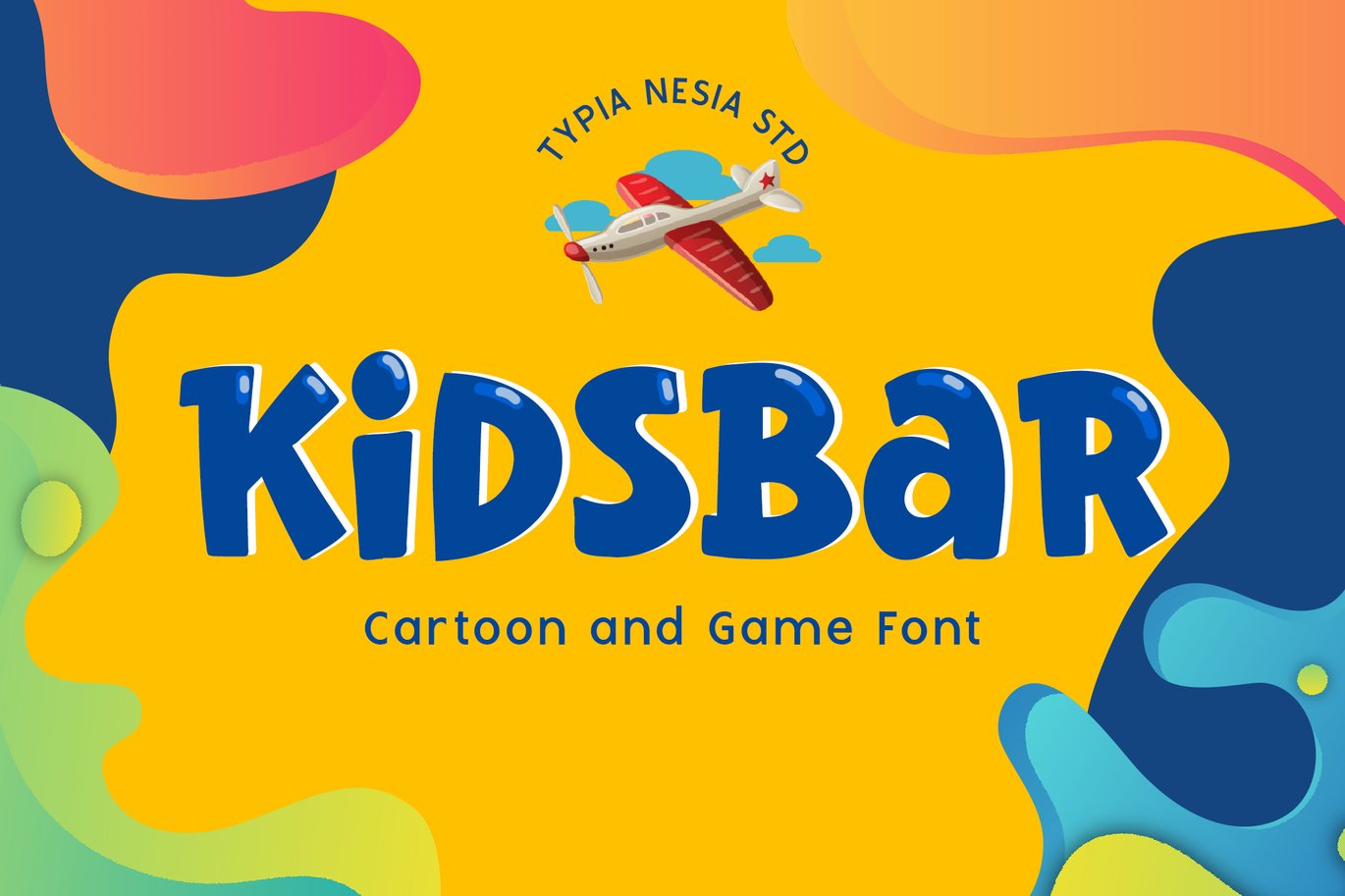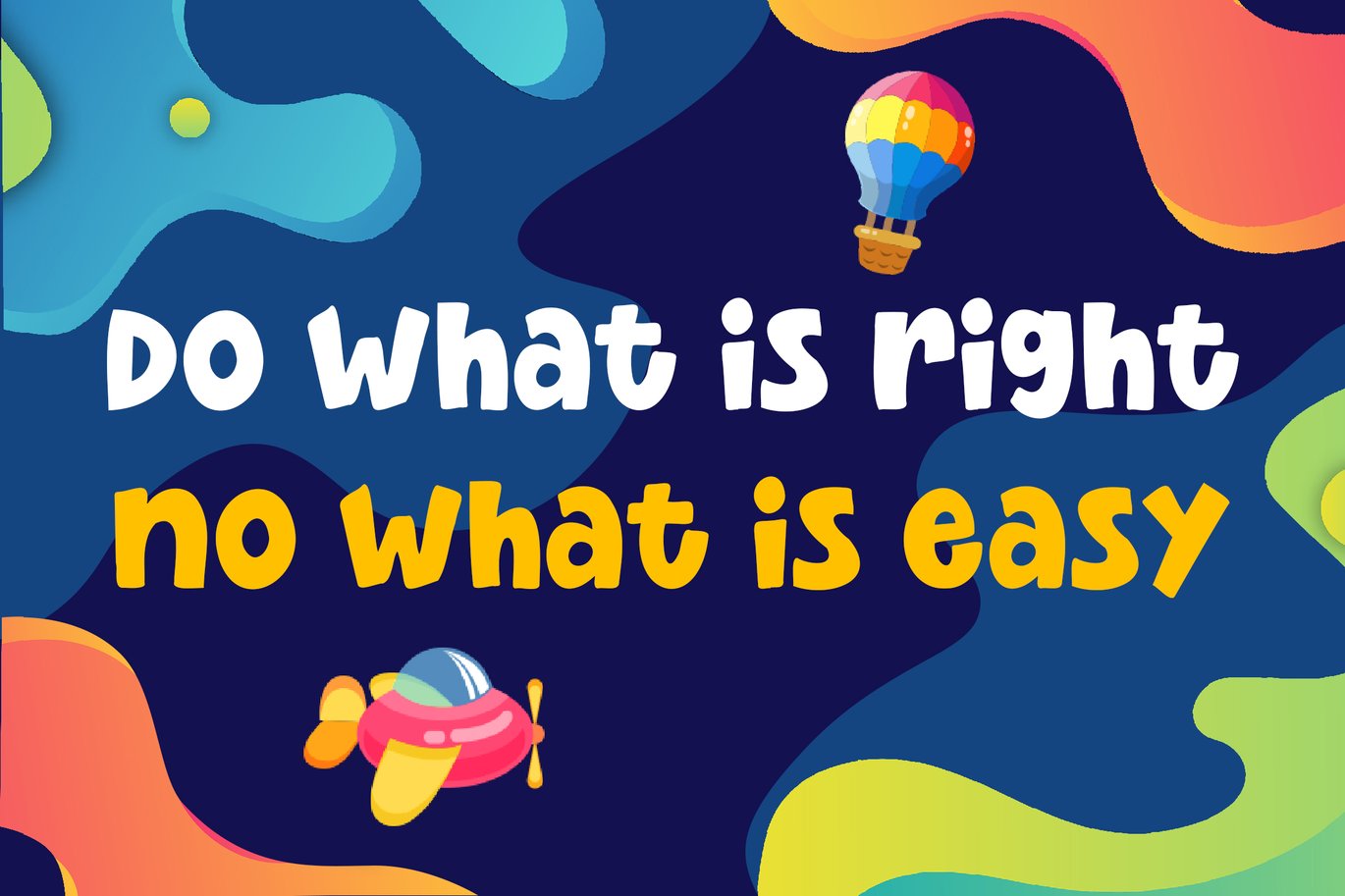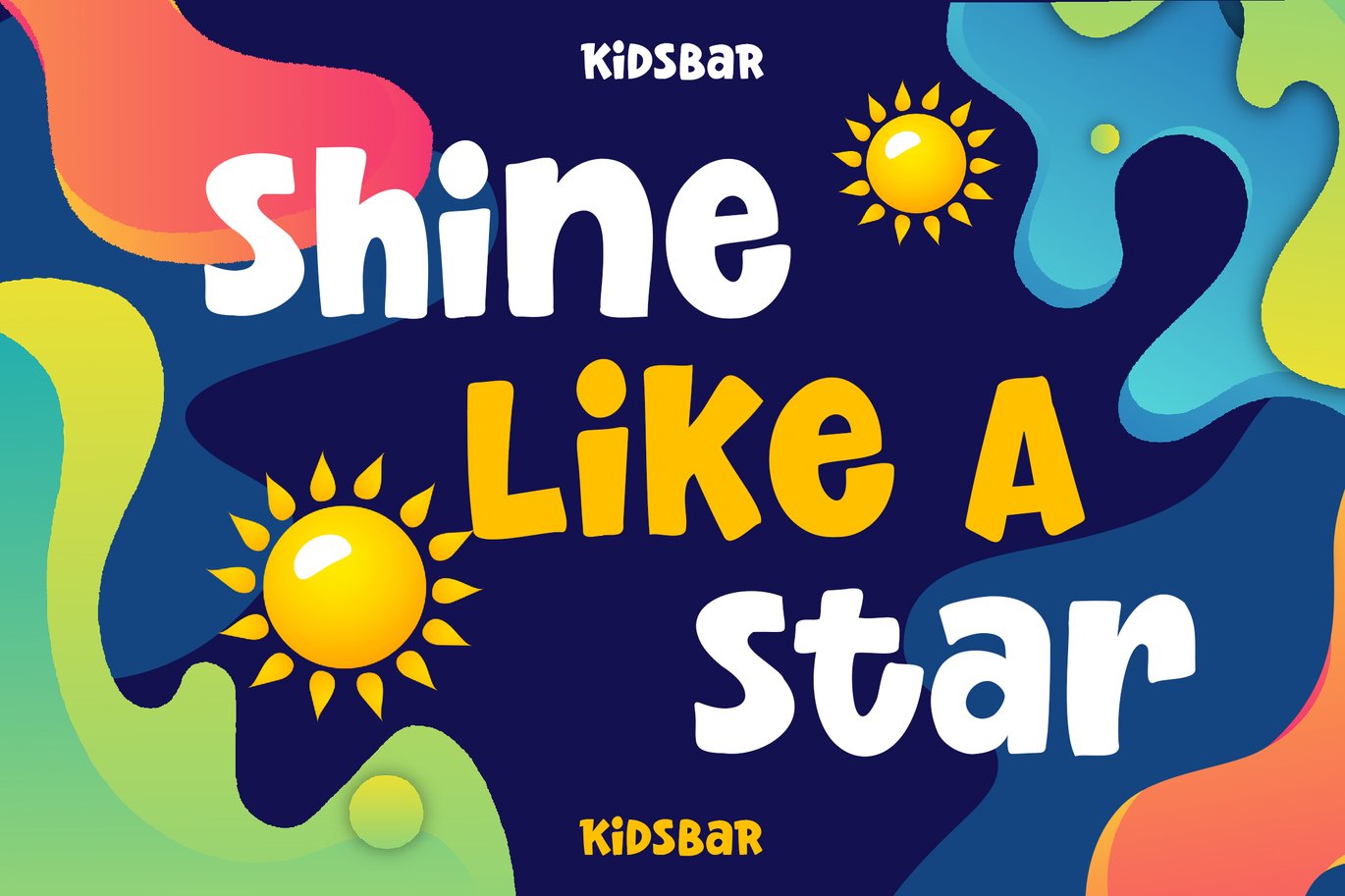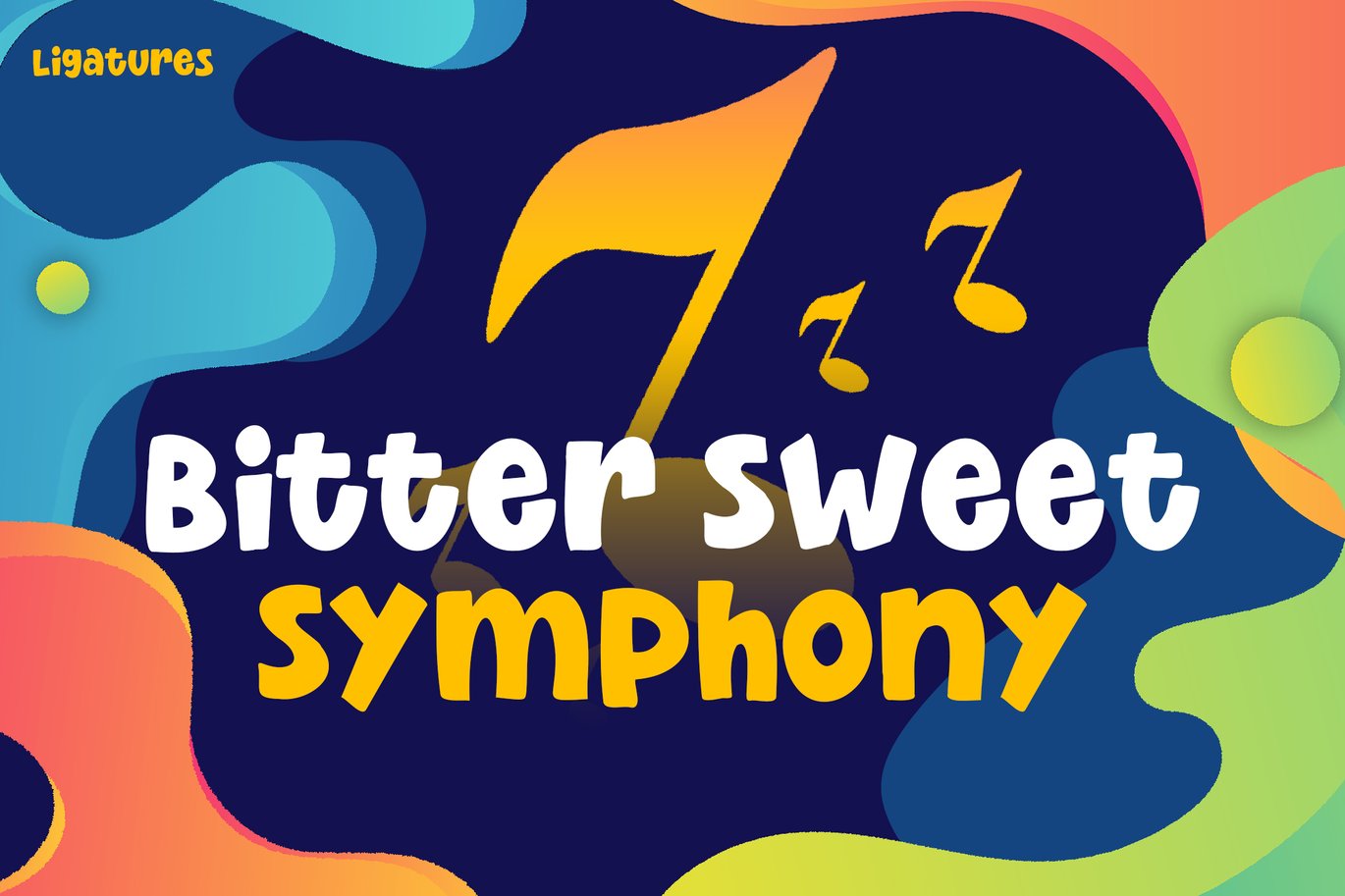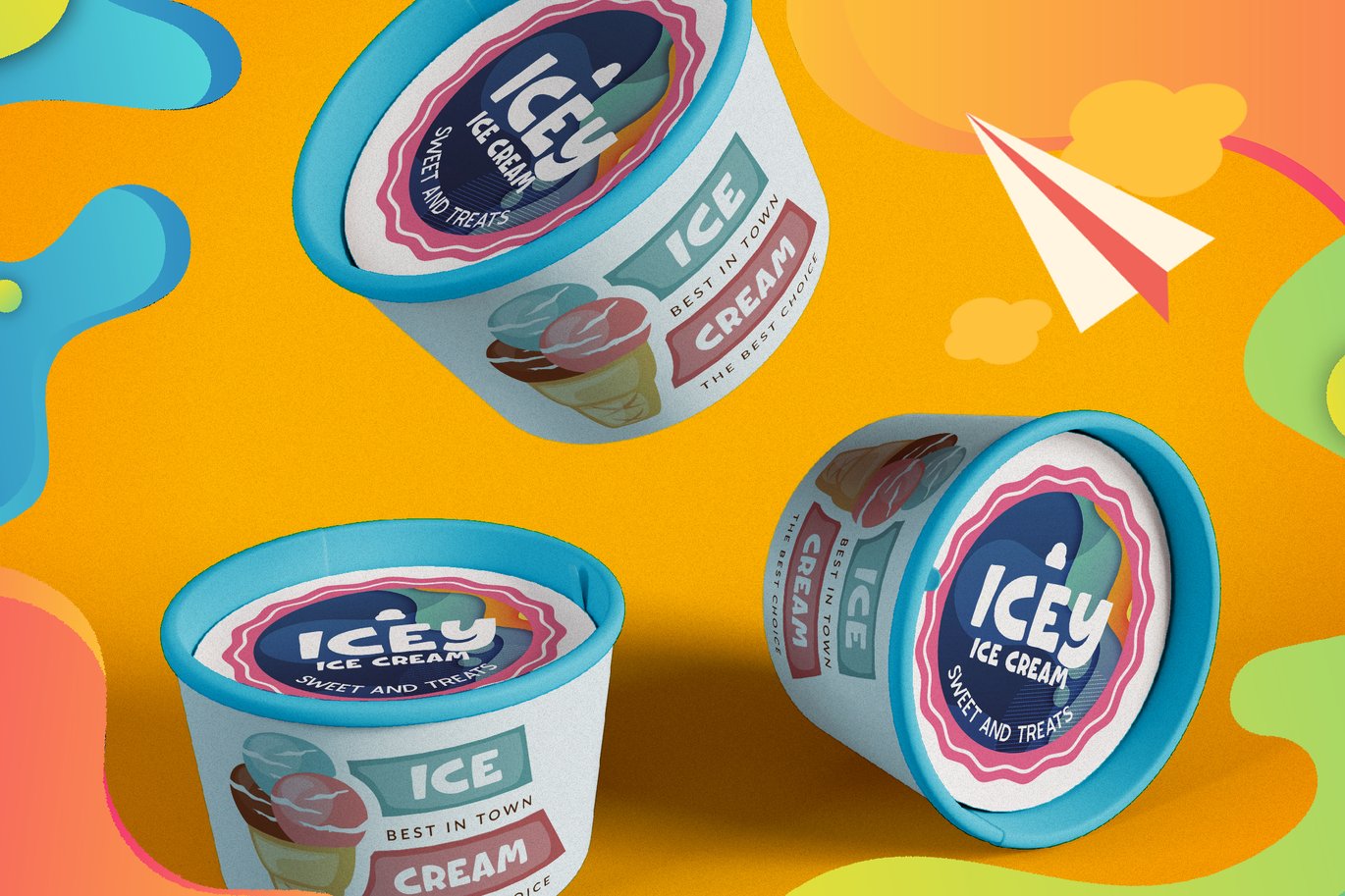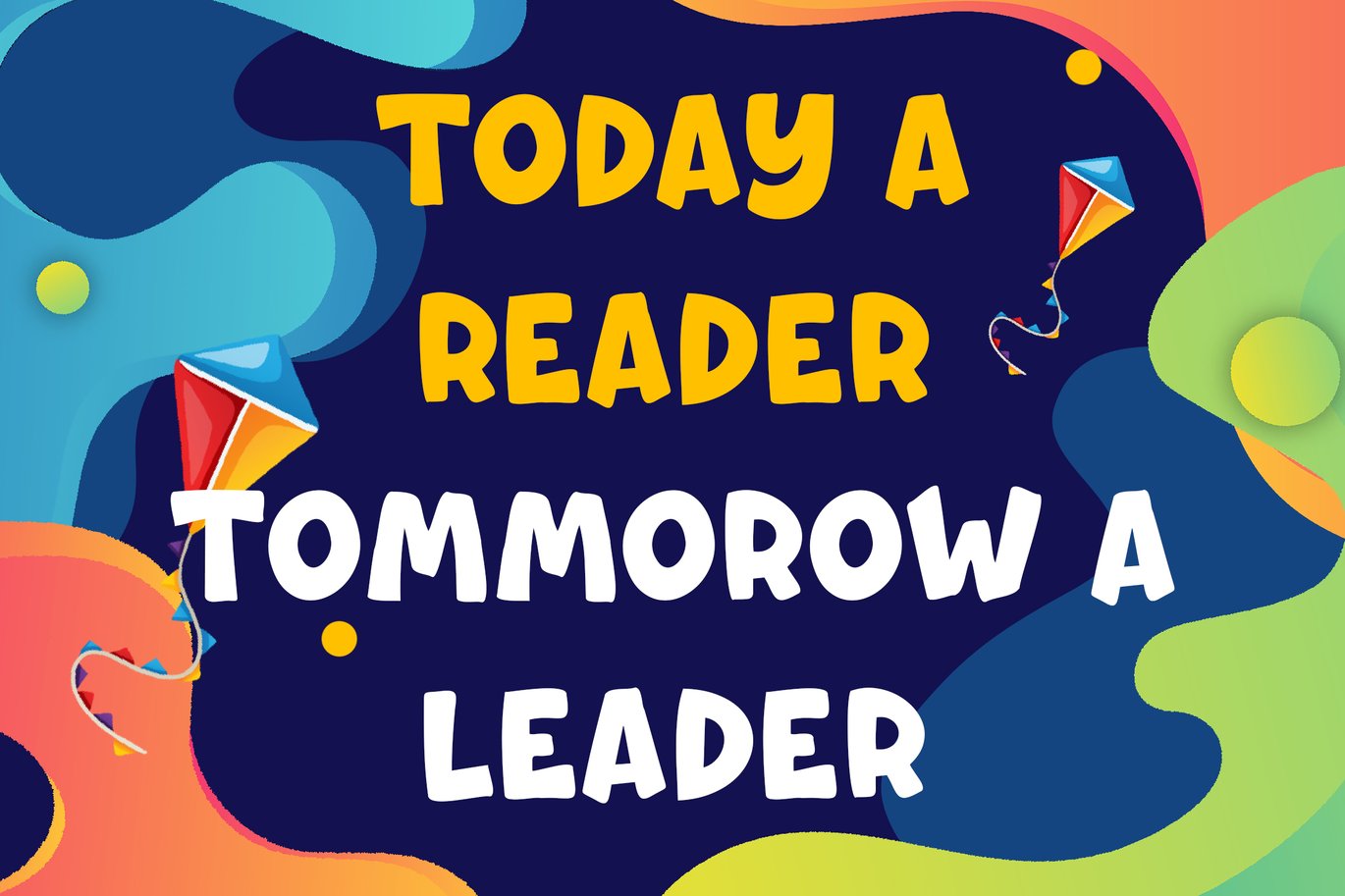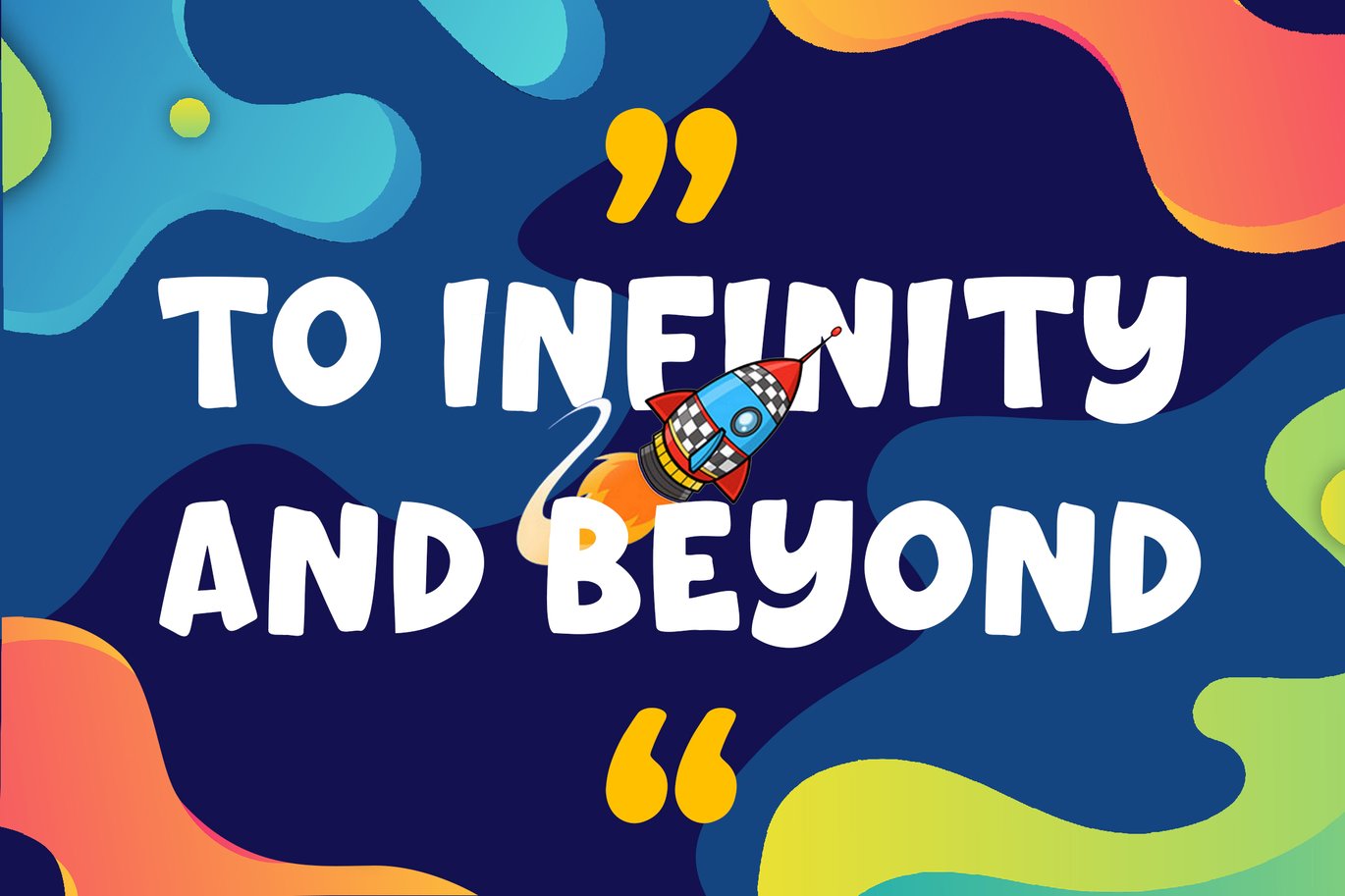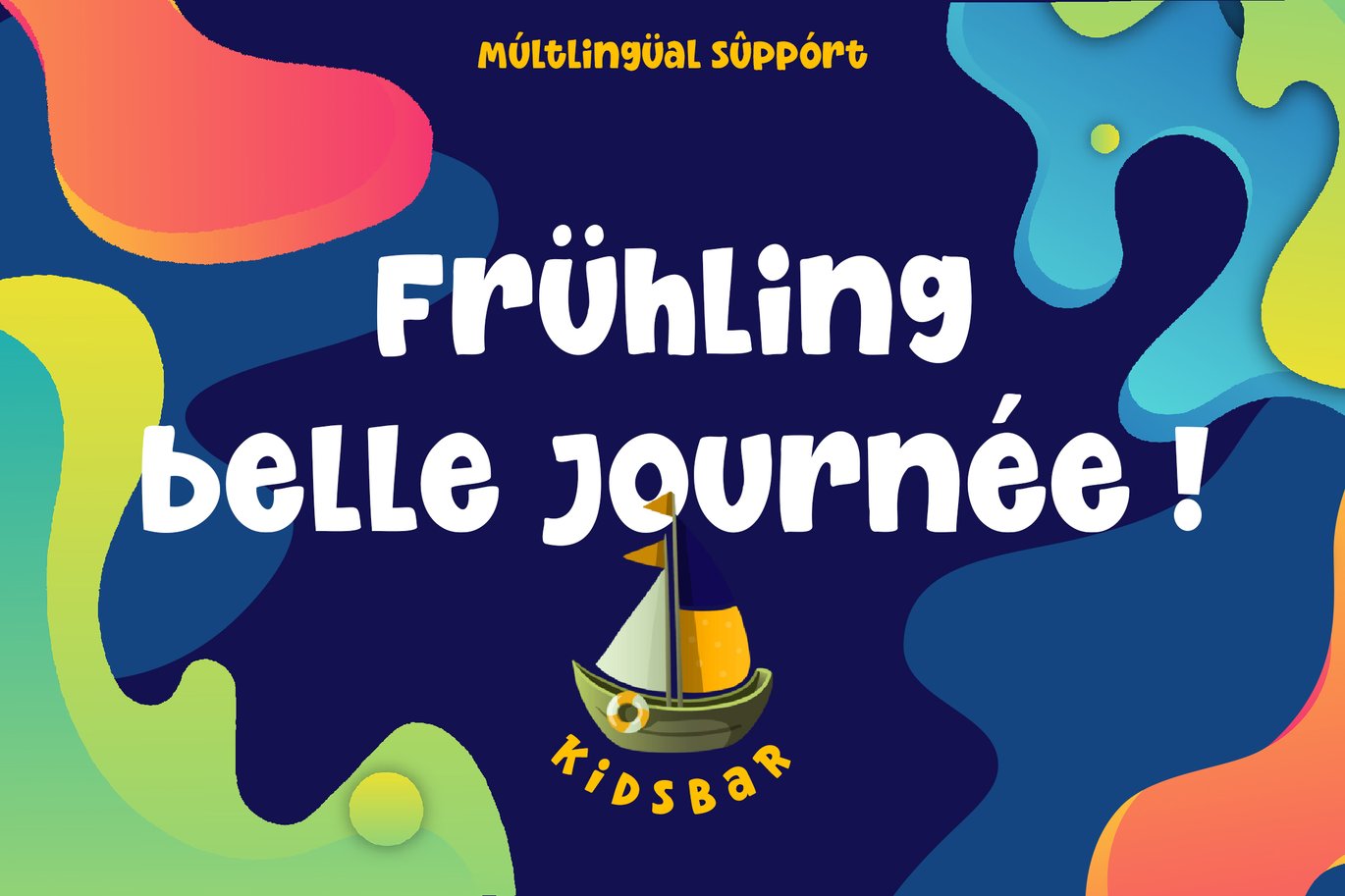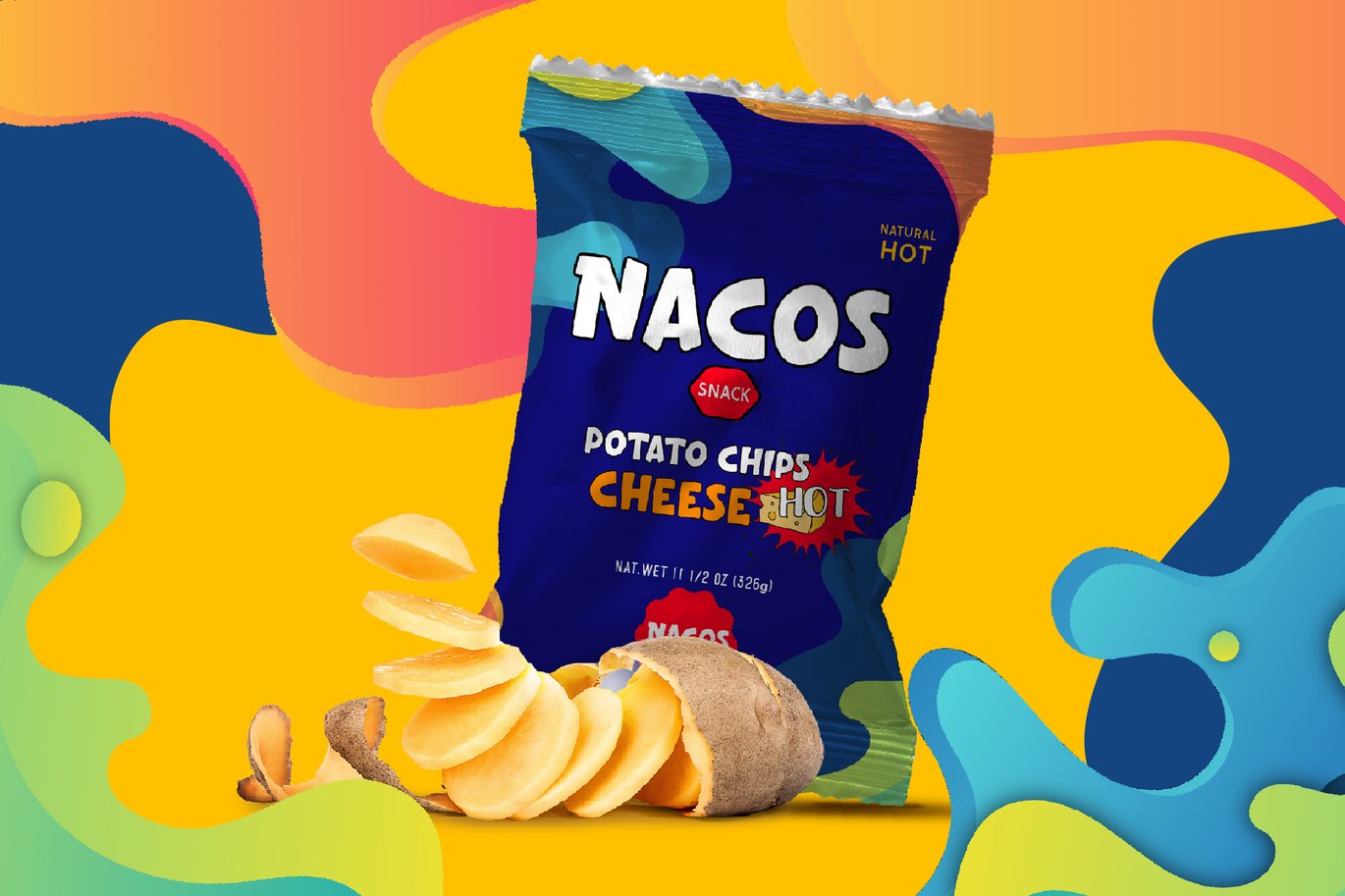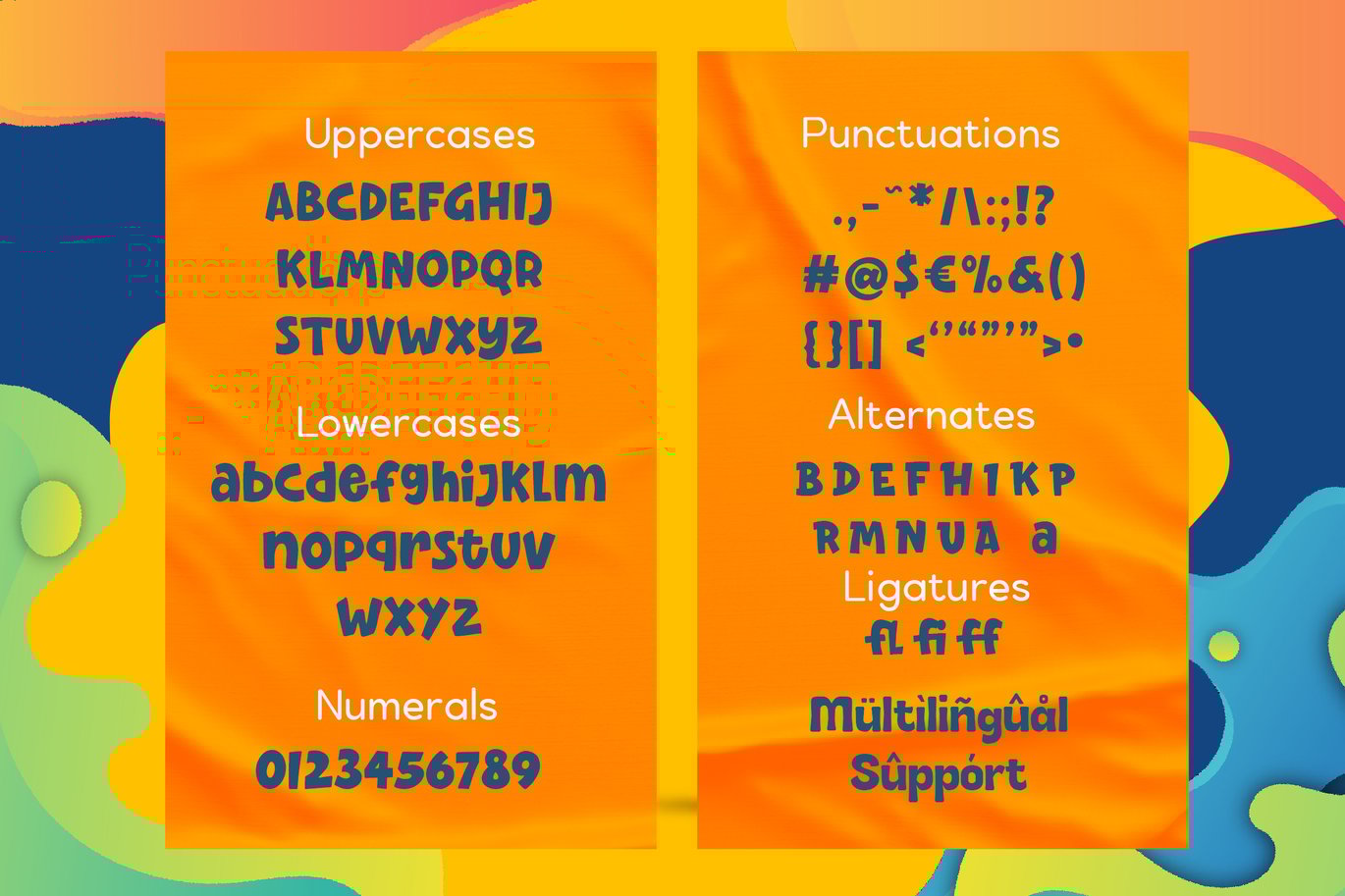
Kidsbar – Fun Game and Cartoon Font
Kidsbar – Fun Game and Cartoon Sans Serif Font
Suitable for any design needs : kid game logo, snack, kindergarten branding, food & beverage packaging, child kid design, modern advertising design, cartoon, animation, kid book, toys branding, poster quote, book / cover Title, website / blog, card design and any hand-lettered needs.